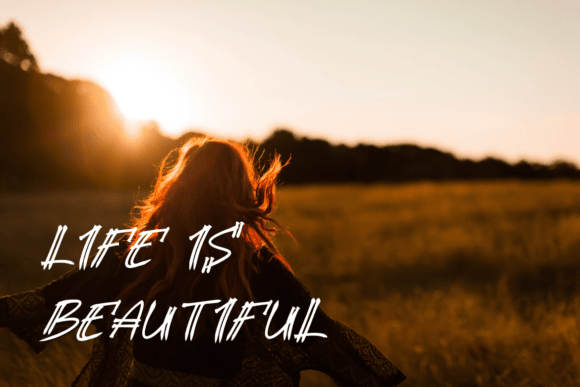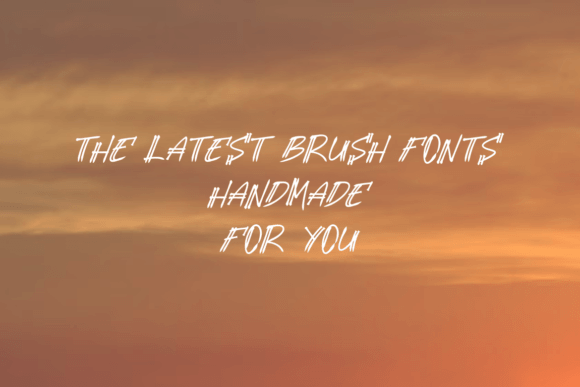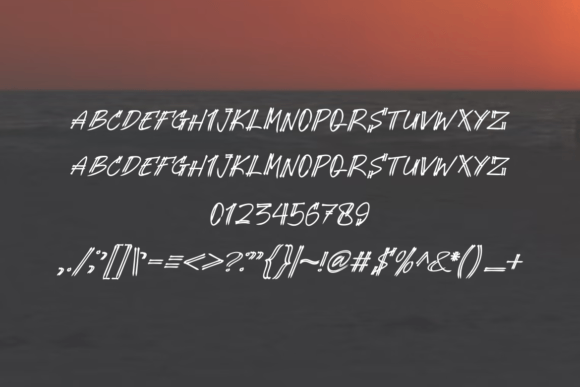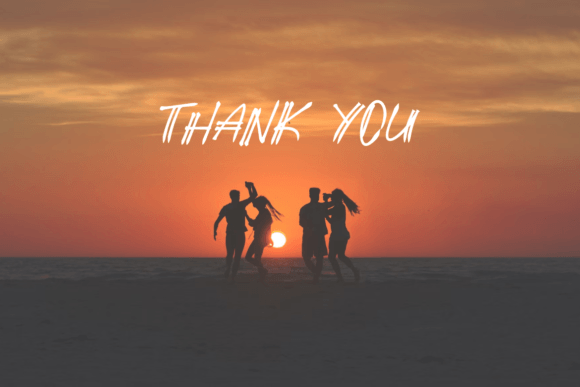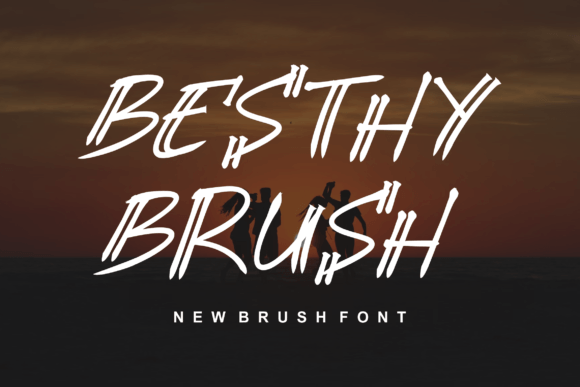
Introducing Besthy Brush Font: Elevate Your Designs with Elegance and Sophistication
In the world of digital design, typography plays a crucial role in conveying the message and aesthetic of your project. For designers and crafters looking to add a touch of elegance and sophistication to their work, Besthy Brush Font emerges as a game-changer. This sleek, elegant, and modern font is not only easy to use but also versatile, making it perfect for a wide range of design applications.
The Unique Charm of Besthy Brush Font
Besthy Brush Font stands out with its clean, stylish brush strokes that mimic the natural flow and texture of hand-brushed typography. Unlike more traditional fonts, Besthy Brush brings a fresh and contemporary feel to your designs, making them instantly more engaging and visually appealing. Whether you’re working on a logo, a website, a digital invitation, or any other project that requires a unique typographic touch, Besthy Brush Font can help you achieve that perfect blend of modernity and elegance.
Key Features of Besthy Brush Font
- Ease of Use: Besthy Brush Font is designed to be user-friendly. Its straightforward and clean design ensures that it can be easily integrated into various design projects without requiring extensive typographic knowledge.
- Versatility: This font is incredibly versatile, suitable for both digital and print designs. From business cards and brochures to websites and social media graphics, Besthy Brush Font adapts seamlessly to different mediums.
- Elegant and Modern: The font’s sleek and stylish brush strokes bring an air of sophistication to any design. Its modern appeal makes it perfect for brands and designers looking to convey a sense of luxury, creativity, and innovation.
- Customization: Besthy Brush Font can be easily customized to fit your project’s specific needs. Whether you want to adjust the size, color, or spacing, this font provides a solid foundation for creating unique and personalized designs.
Applications of Besthy Brush Font
The applications of Besthy Brush Font are vast and varied. Here are a few ideas to get you started:
- Branding and Logos: Create a memorable brand identity with a logo that stands out. Besthy Brush Font’s unique style can help your brand make a lasting impression.
- Digital and Print Media: Enhance your website, blog, or social media graphics with elegant typography. For print, consider using it for brochures, flyers, posters, and business cards.
- Invitations and Announcements: Add a touch of class to your invitations, thank you cards, and announcements. Besthy Brush Font is perfect for special occasions and events.
- Packaging: Stand out on the shelves with product packaging that features custom typography. Besthy Brush Font can help elevate your product’s visual appeal.
Tips for Using Besthy Brush Font Effectively
To make the most of Besthy Brush Font, consider the following tips:
- Pair it Wisely: Combine Besthy Brush Font with complementary fonts to create visual interest and hierarchy in your designs.
- Experiment with Colors: Don’t be afraid to play with different colors and gradients to enhance the font’s elegant and modern appeal.
- Adjust and Customize: Take advantage of the font’s customization options to ensure it fits perfectly with your project’s tone and style.
Besthy Brush Font is a powerful tool for designers and crafters looking to elevate their projects with a touch of elegance and sophistication. Its sleek, stylish brush strokes, ease of use, and versatility make it an excellent choice for a wide range of design applications. By incorporating Besthy Brush Font into your workflow, you can create visually stunning and memorable designs that stand out in a crowded digital landscape.